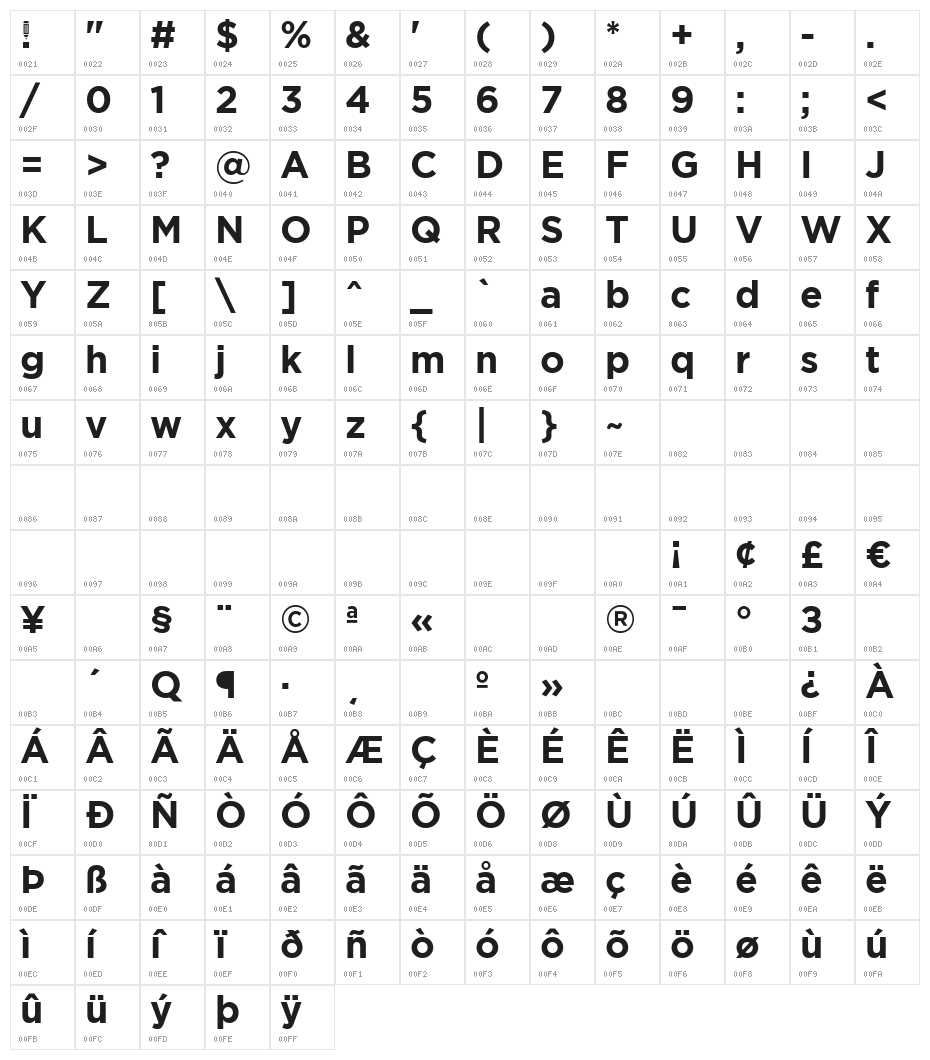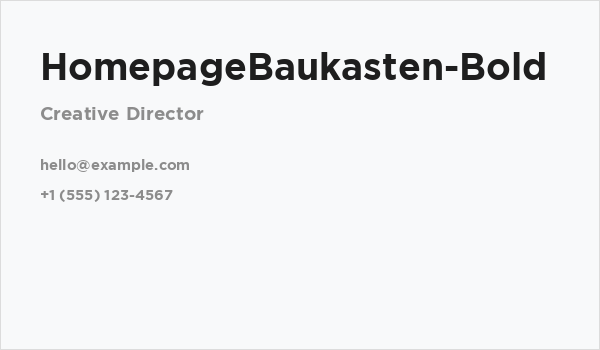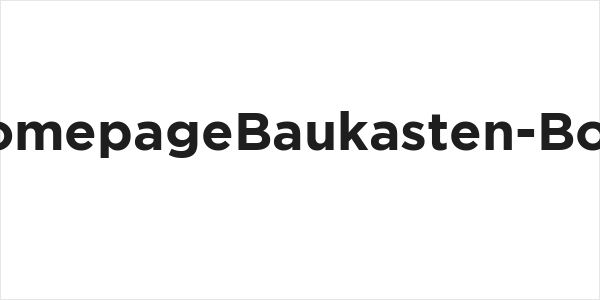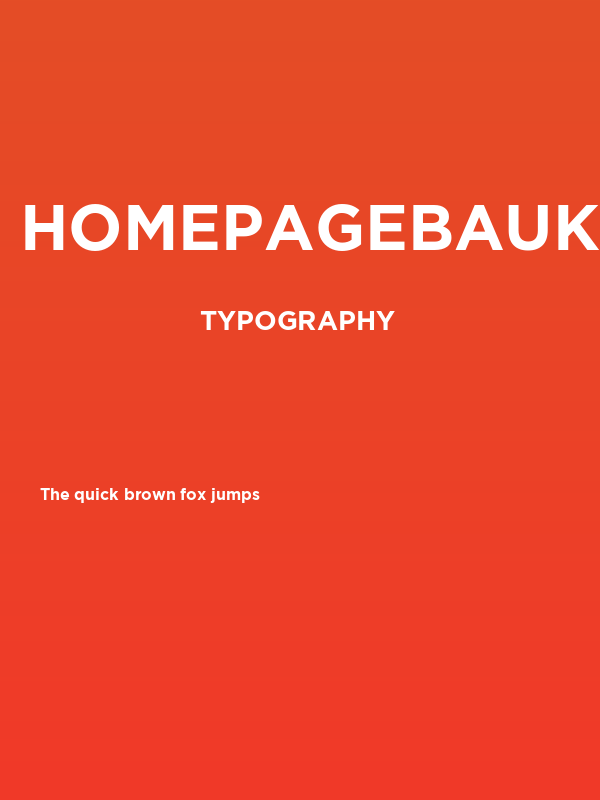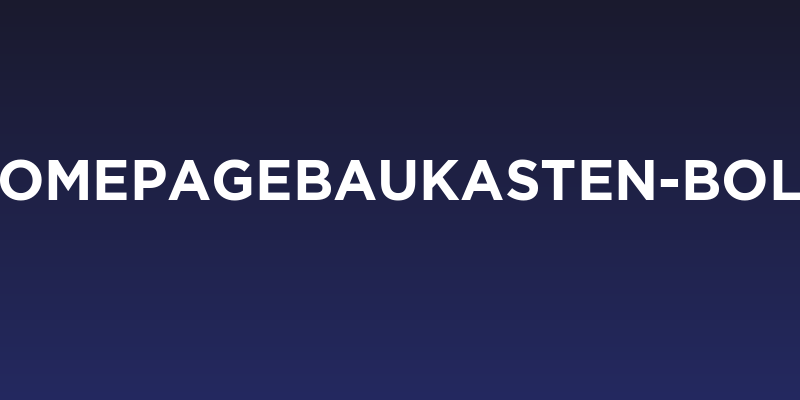
HomepageBaukasten-Bold Font
HomepageBaukasten-Bold Description
This font showcases a bold and modern sans-serif style with clean, geometric lines and a strong presence. The characters are evenly weighted, providing a balanced and harmonious appearance. The uppercase and lowercase letters are distinct and easily readable, making it suitable for a variety of design applications. The numerals are clear and consistent, while the special characters maintain the same boldness and clarity. Overall, this font exudes a contemporary and professional feel, ideal for making a strong visual impact.
| Proposed Projects | Ideal for branding, advertising, headlines, and digital media projects where a strong, modern look is desired. |